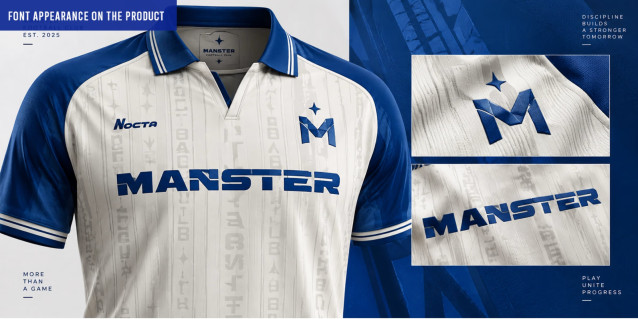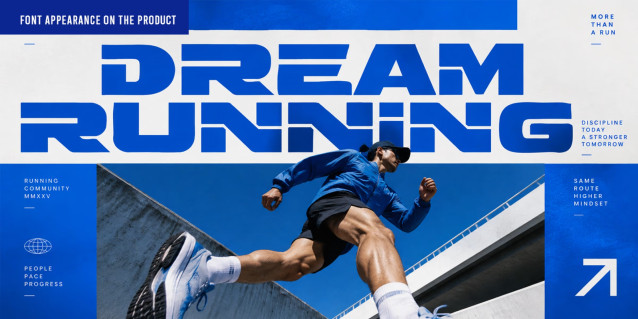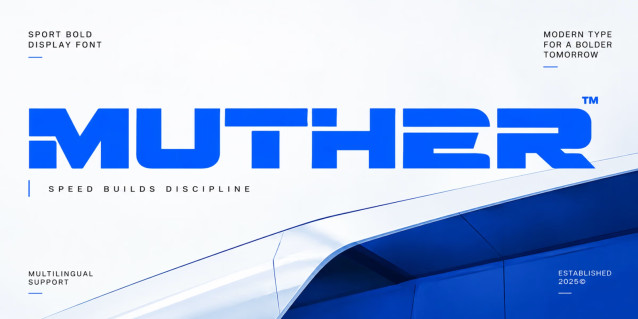
Muther – Sport Bold Display Font
MUTHER is a powerful sport-inspired display typeface built around bold geometric forms, sharp cuts, and a futuristic visual character. Its heavy, blocky construction creates an immediate sense of speed, strength, movement, and performance, making it ideal for designs that need a strong and energetic presence.
With its distinctive letterforms and modern proportions, MUTHER combines a technical automotive aesthetic with contemporary sports typography. The clean structure keeps it highly versatile, while the aggressive shapes give headlines and branding a confident, competitive edge.
MUTHER is especially suited for automotive branding, racing graphics, sportswear, gym branding, esports, gaming, posters, and promotional campaigns. Its bold appearance works particularly well at large sizes where the unique details of each character can become a visual statement.